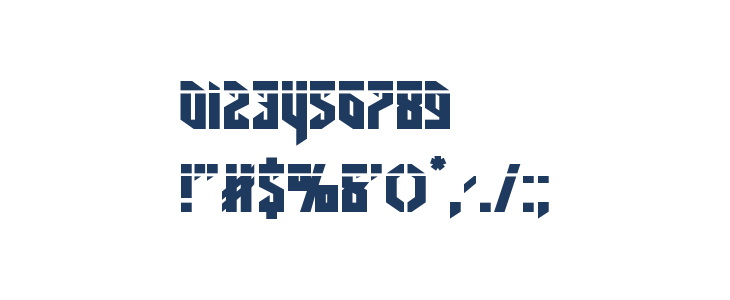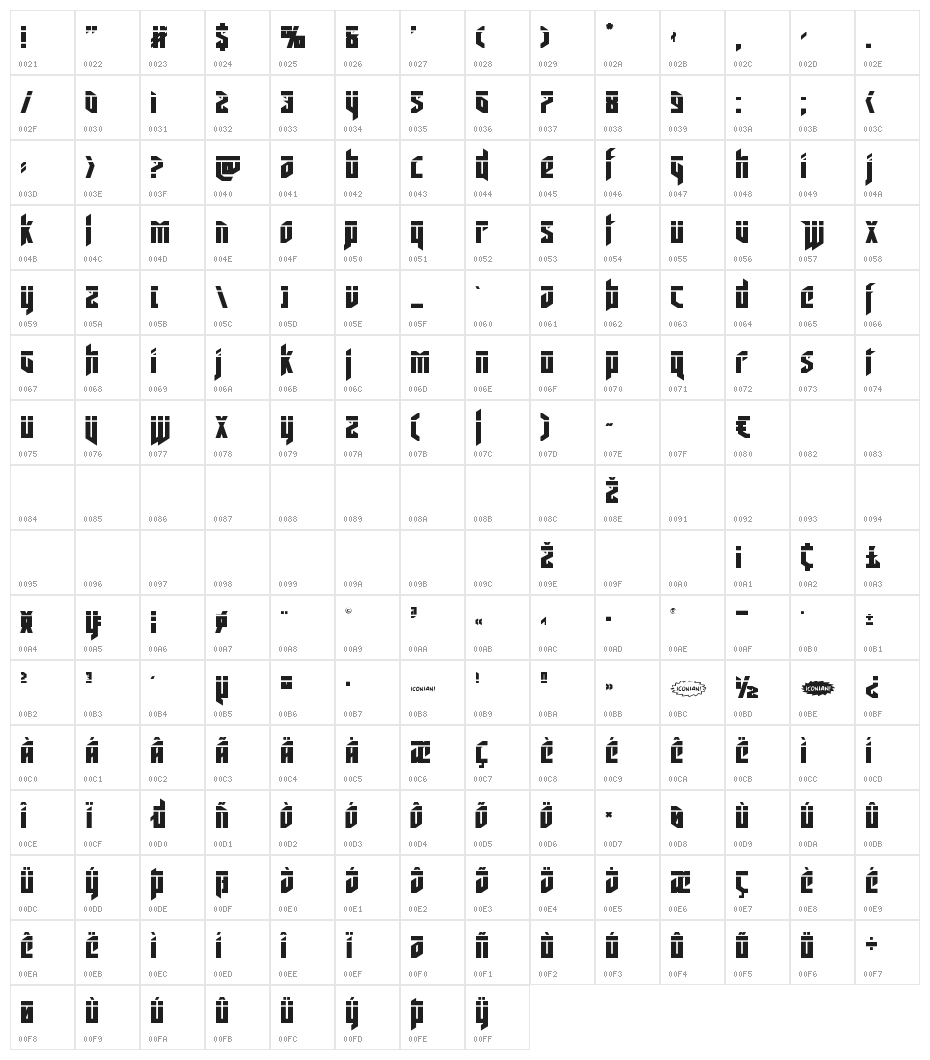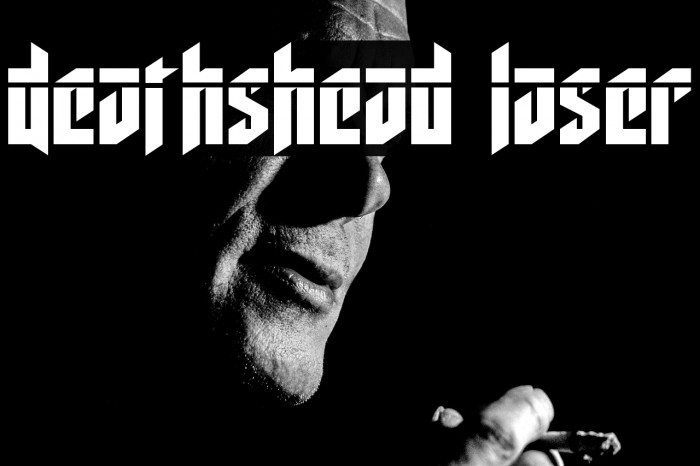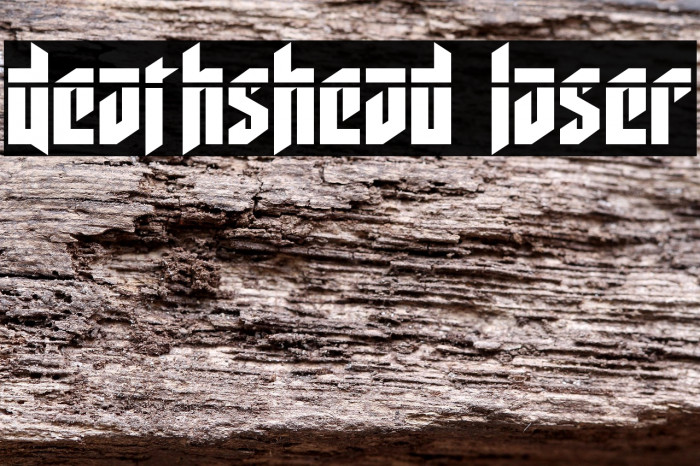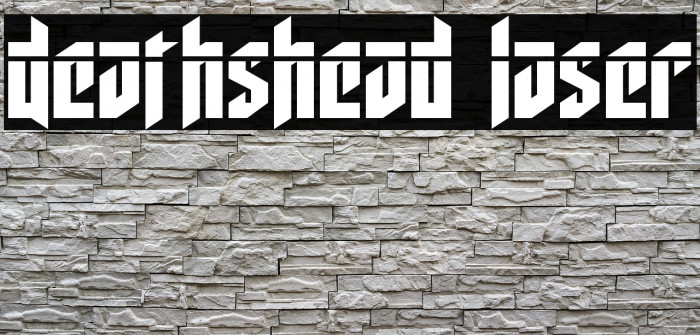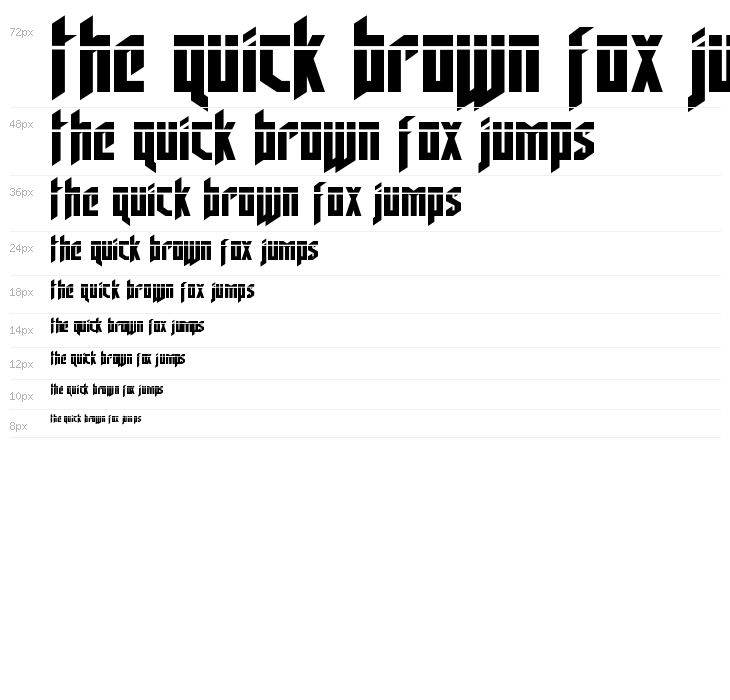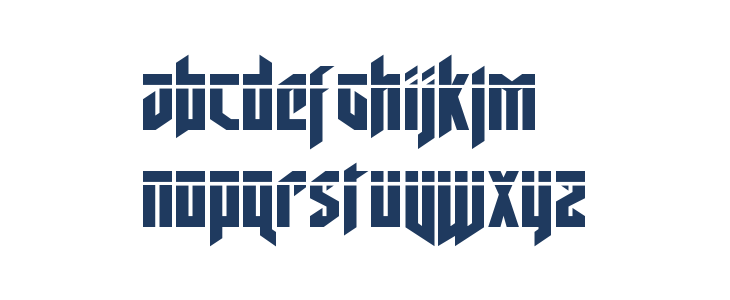
Deathshead Laser Font
Deathshead Laser Description
This font features a bold, angular design with a futuristic and edgy appearance. The characters are sharply cut, with a geometric style that emphasizes straight lines and sharp angles. The uppercase and lowercase letters maintain a consistent height, creating a uniform look. Numbers and special characters follow the same angular design, ensuring a cohesive appearance across all elements. The font's unique style makes it stand out, with a strong visual impact that is both modern and aggressive.